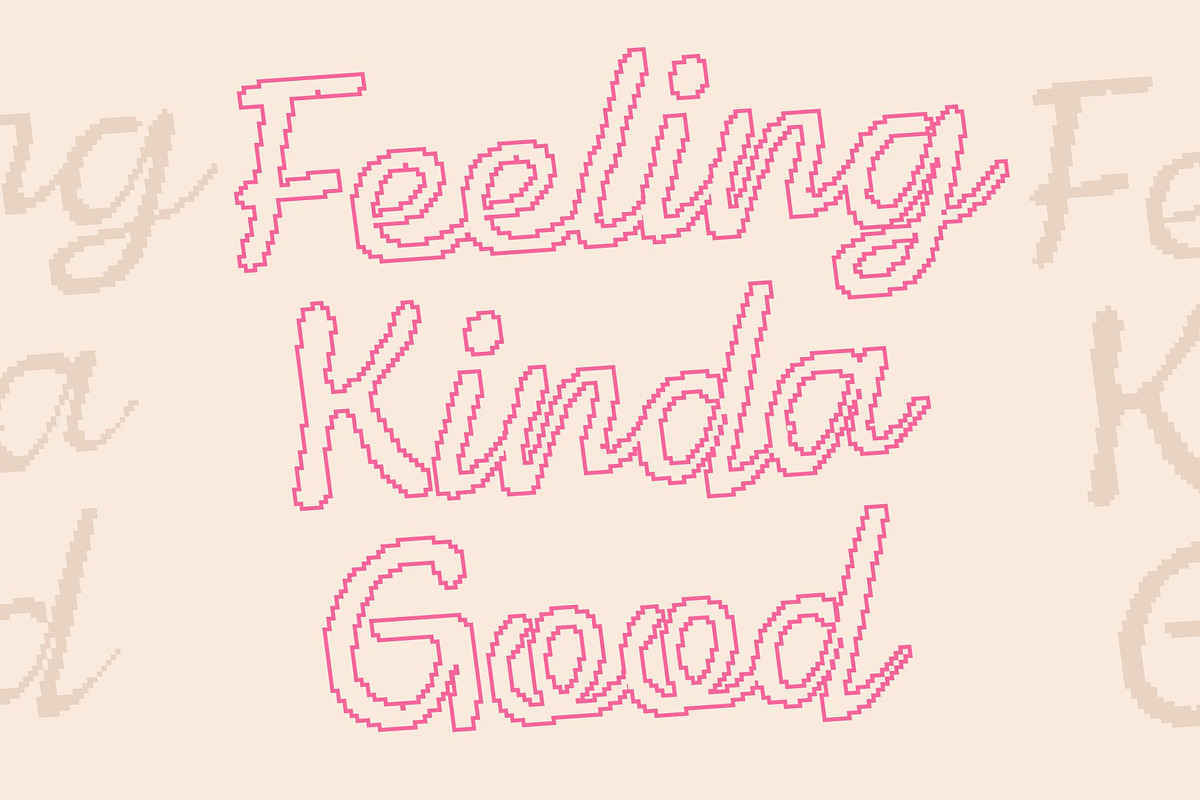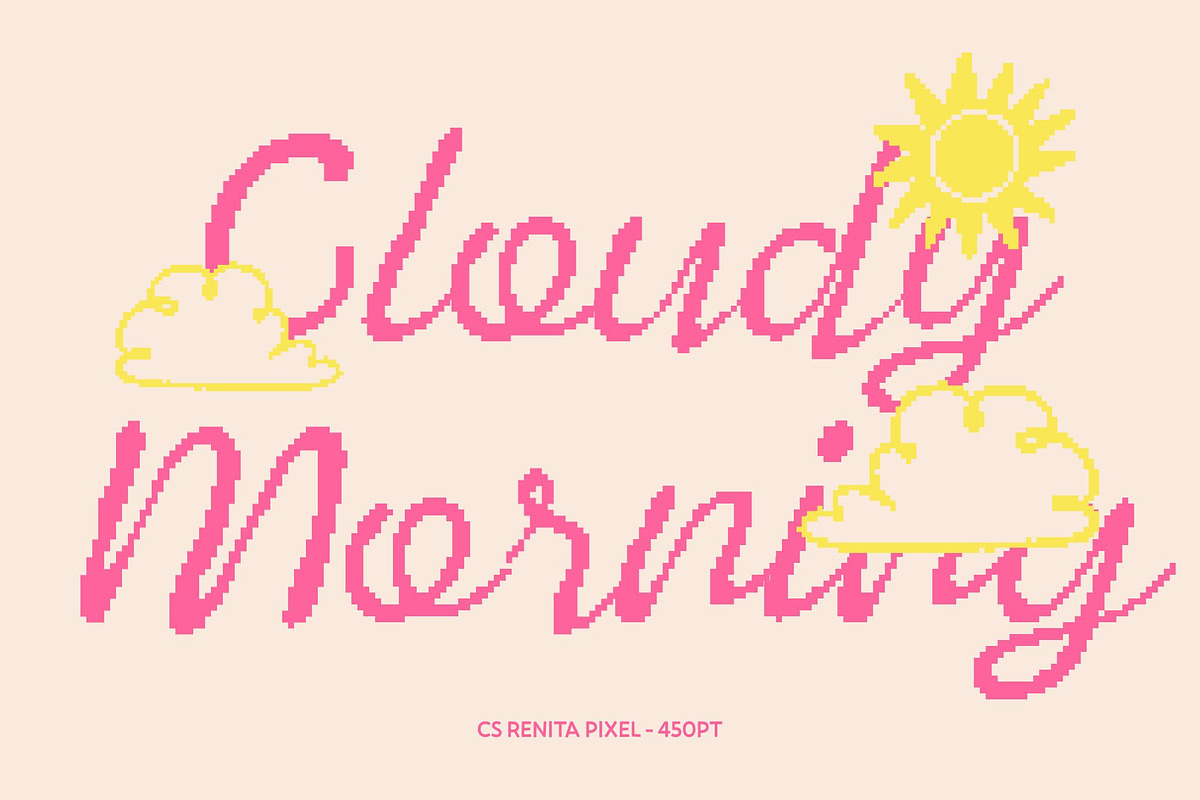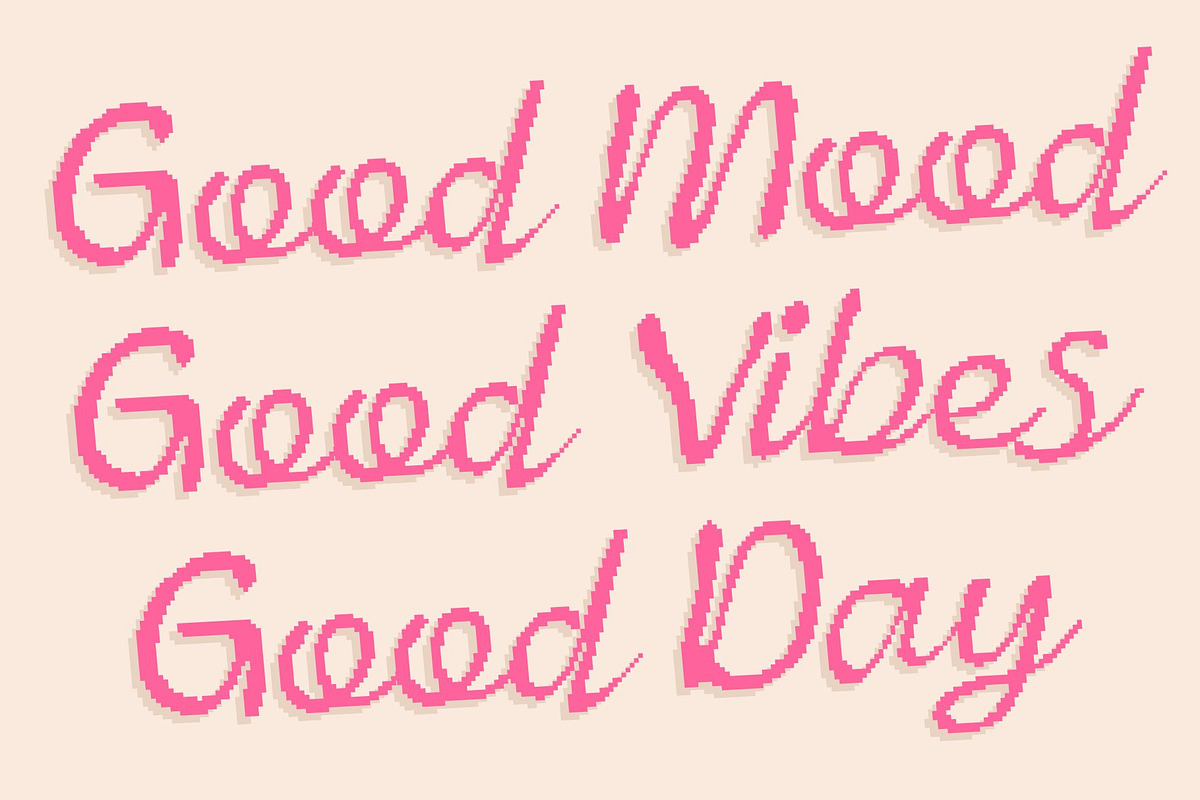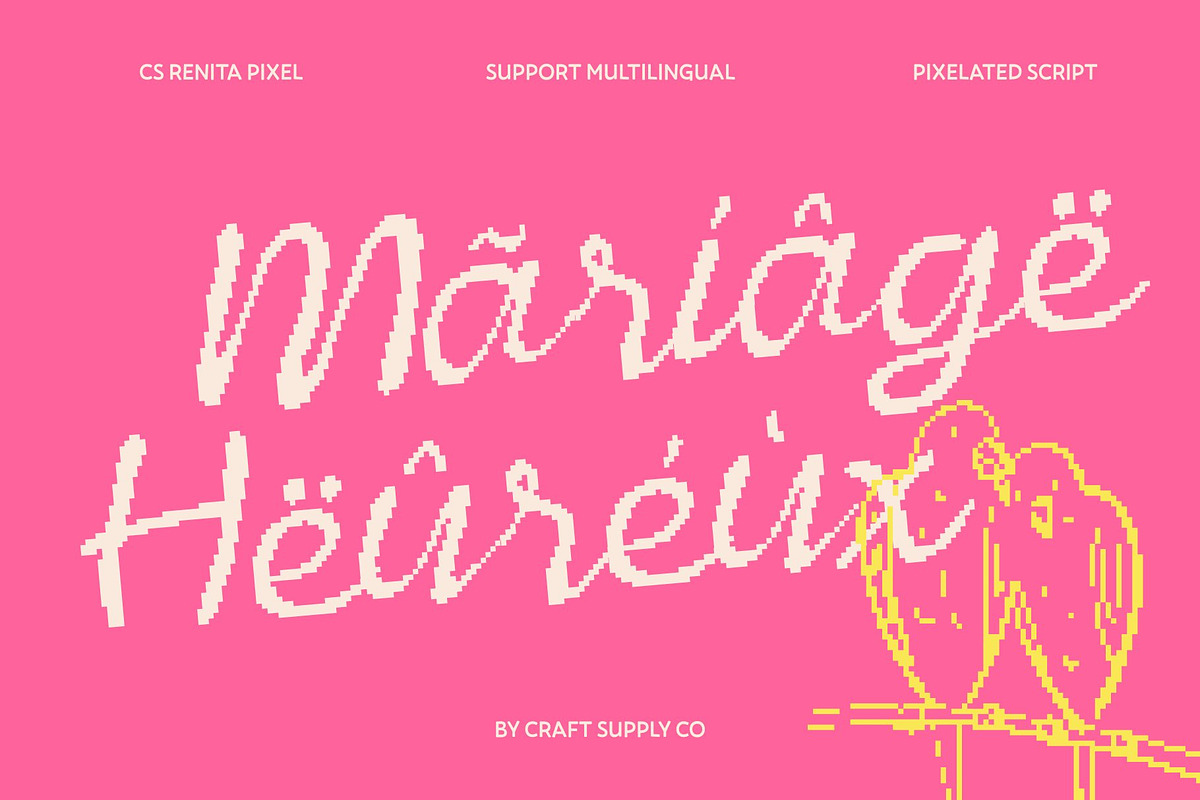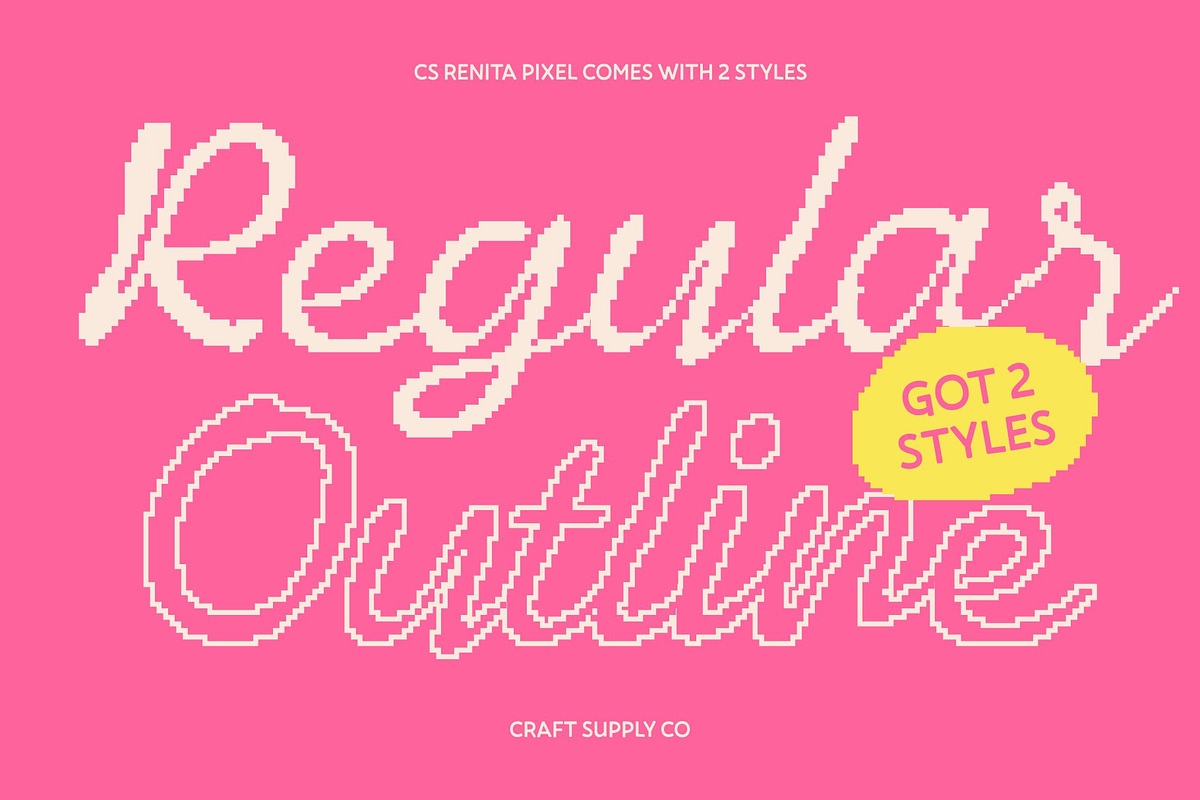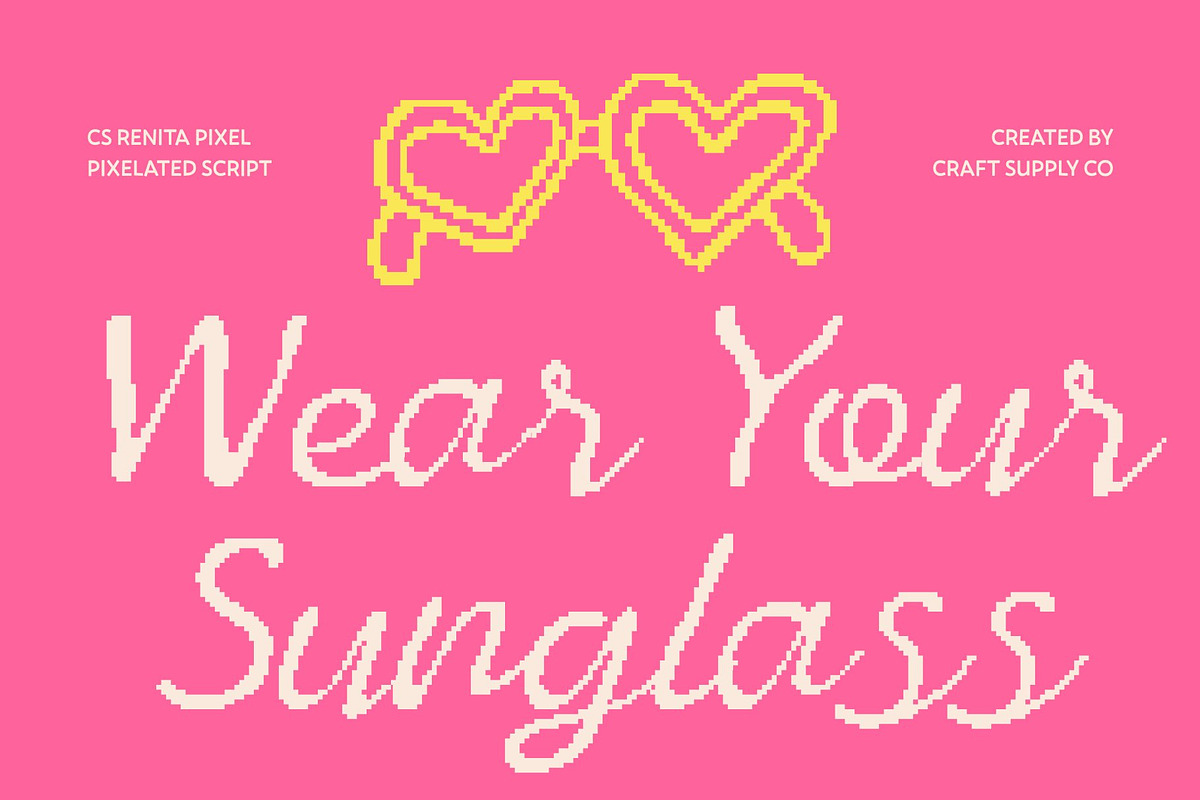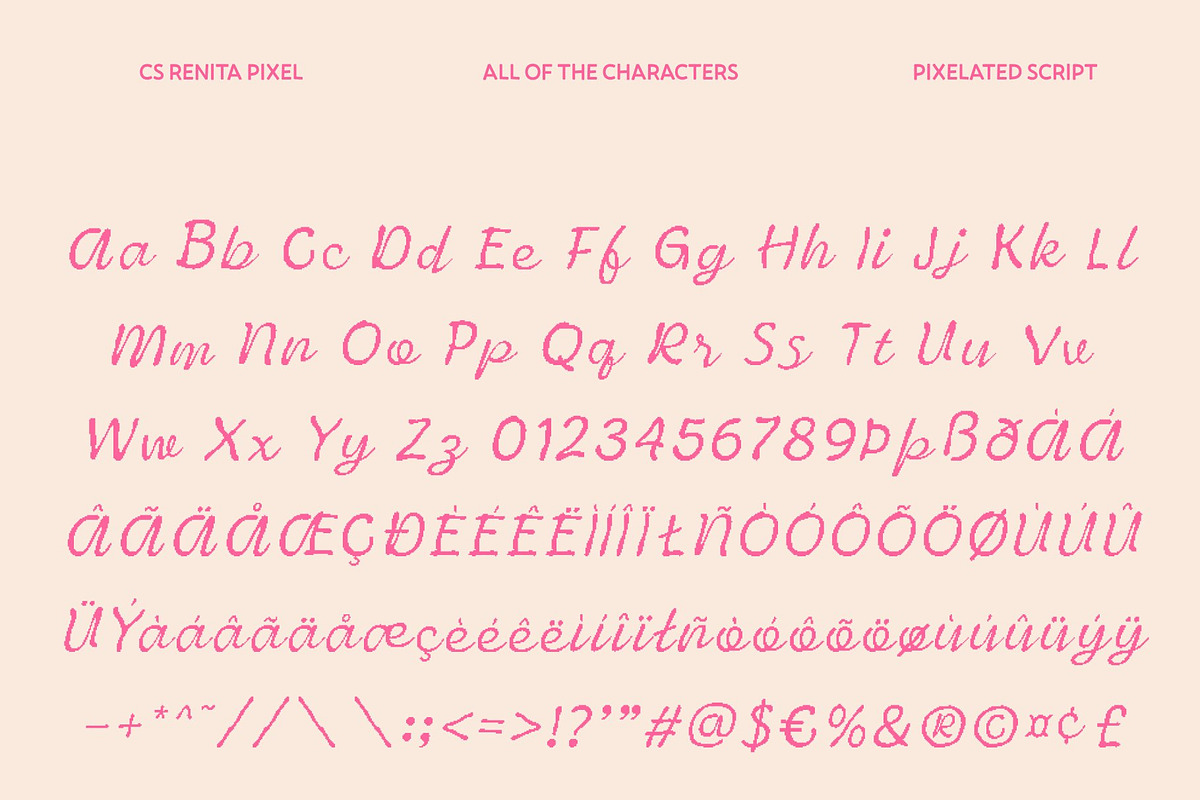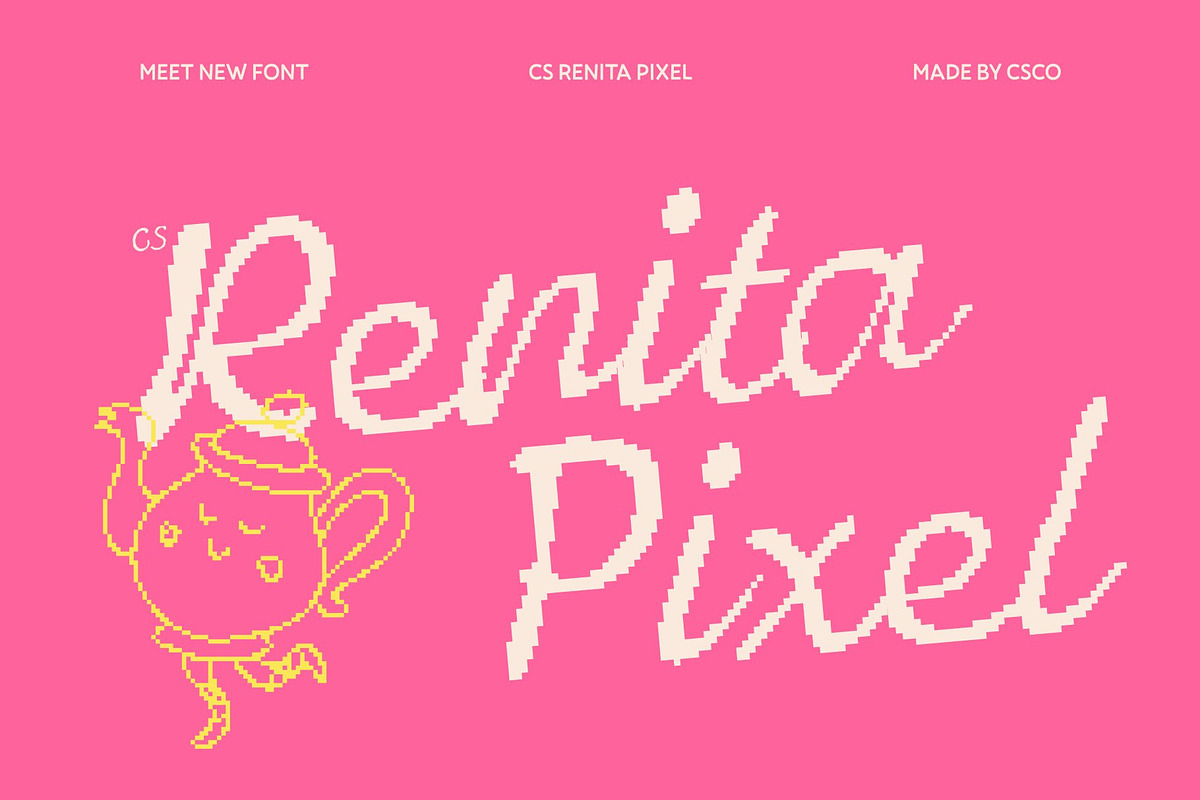
CS Renita Pixel
CS Renita Pixel – Script Font with Graceful Elegance
Flowing Script with Handwritten Pixel Charm This is a graceful script font inspired by natural handwriting and refined through a subtle pixel construction. Its flowing strokes and elegant curves retain a soft, personal feel, while the pixel structure introduces a distinctive digital texture. This blend creates typography that feels warm and expressive, yet visually unique and modern.
Graceful Design with Digital Luxury Appeal Each letter carries smooth, connected curves that echo authentic penmanship, enhanced by pixel precision that adds rhythm and character. The result is a luxurious handwritten look with a contemporary digital edge perfect for designers who want elegance that stands out in modern and retro-tech environments.
Perfect for Weddings, Fashion, and Digital Branding This font shines in wedding invitations, event stationery, fashion branding, luxury editorials, and creative digital designs. Its elegant script elevates formal compositions, while the pixel styling adds an eye-catching twist that works beautifully for digital media, modern layouts, and nostalgic technology-inspired visuals.
A Versatile Script with Timeless Grace and Pixel Personality Designed for expressive typography, this font adapts seamlessly to logos, packaging, headlines, and special messages. Its refined script form combined with subtle pixel character ensures every design feels graceful, personal, and memorable bridging classic beauty with modern digital charm.
- CS Renita Pixel Regular
- CS Renita Pixel Outline